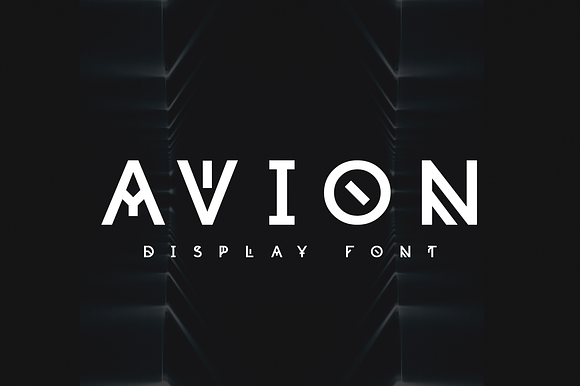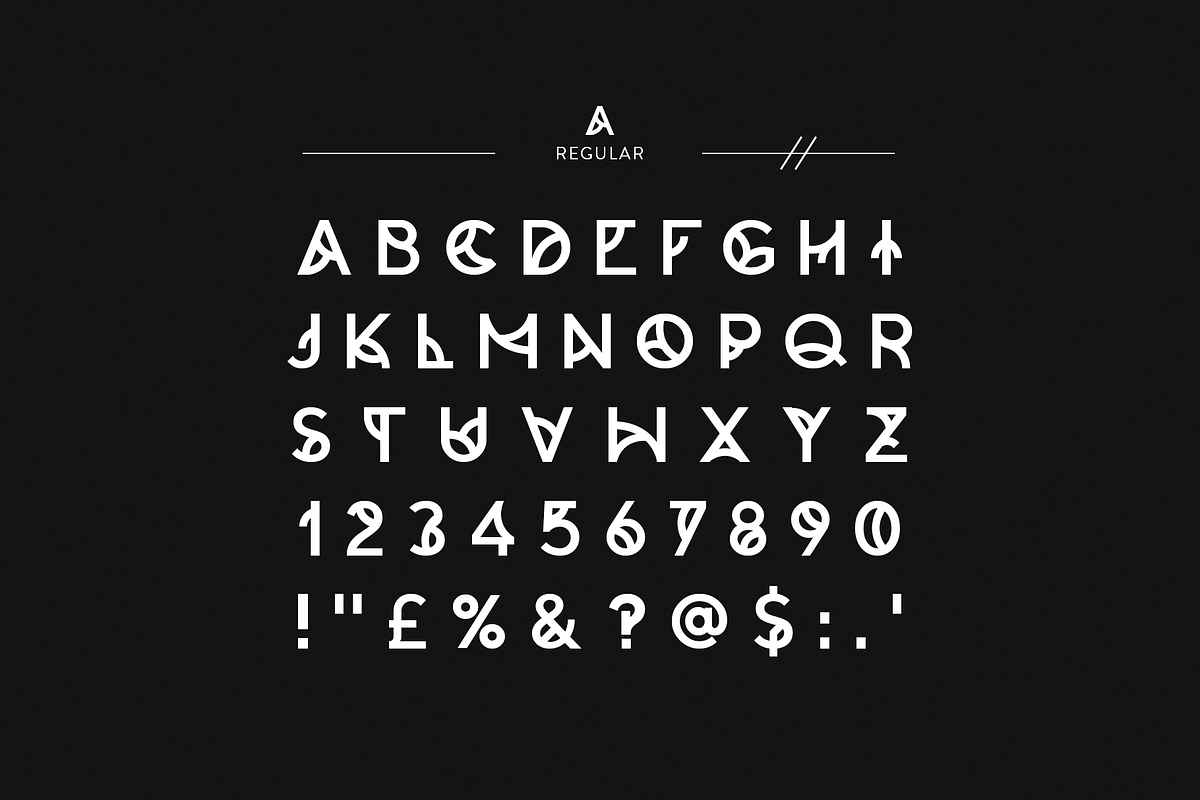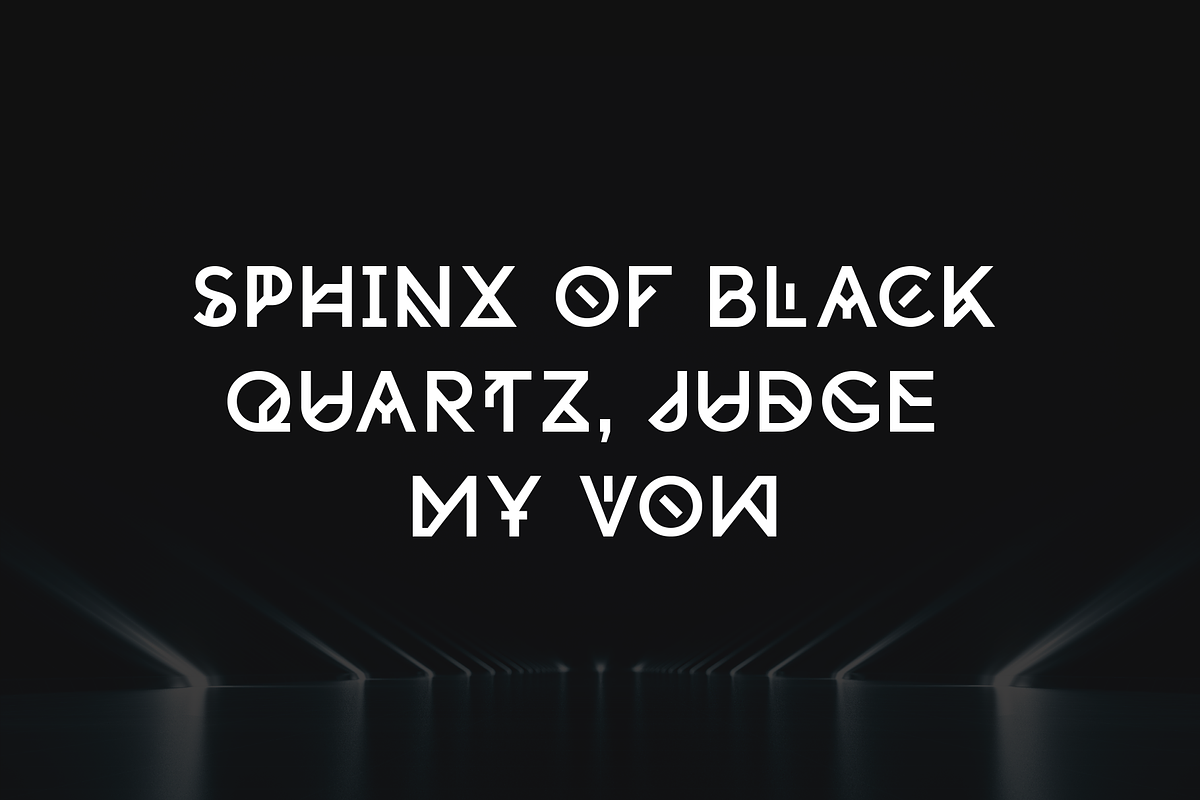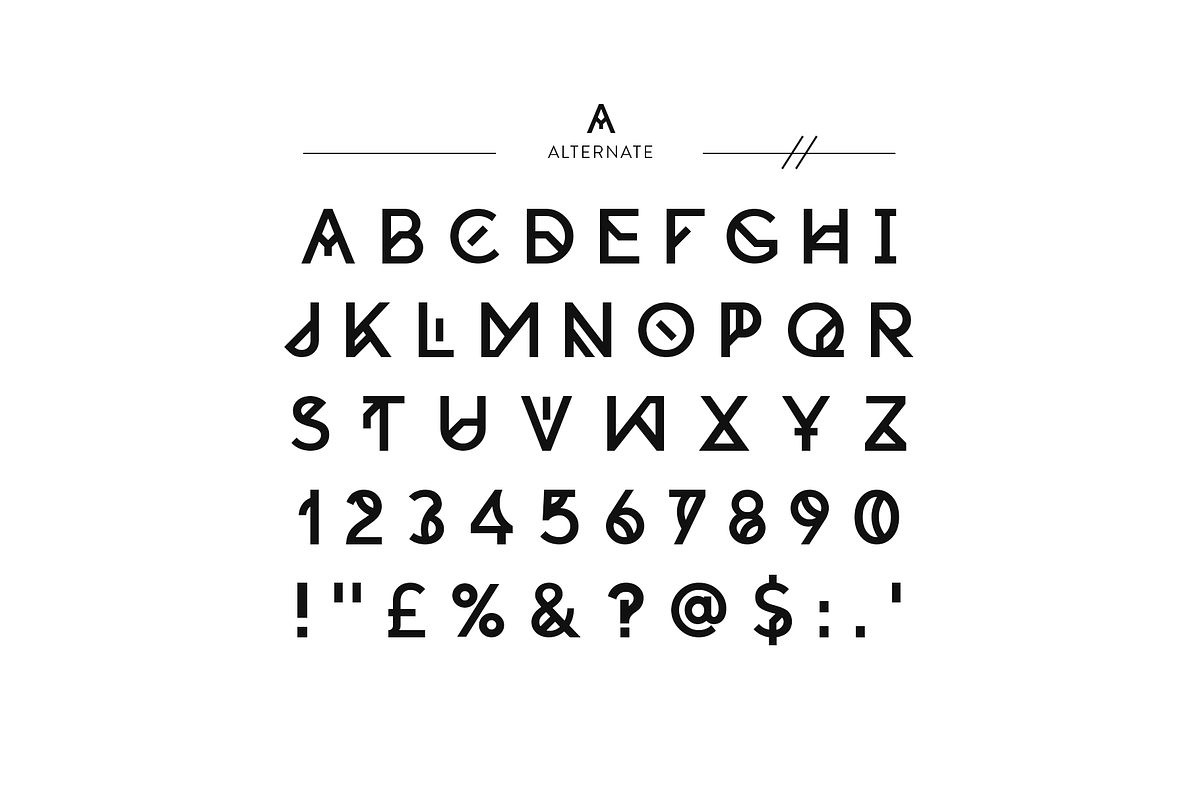
Avion | Display Font
Avion is a contemporary sans-serif typeface stimulated with the geometric shapes and fluidity of modern typefaces. The aesthetics have proven to work well in most layouts, contexts and is accompanied with uppercase and lowercase alternates.
Inspired by seminal typefaces such as Avant-Garde, Futura and Neutrif. Ideal for headlines, identity, short sentences, logos and more.